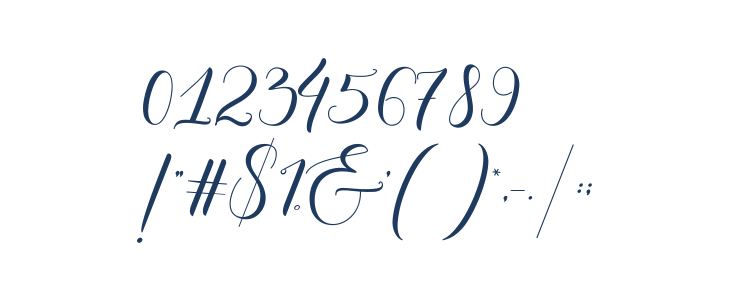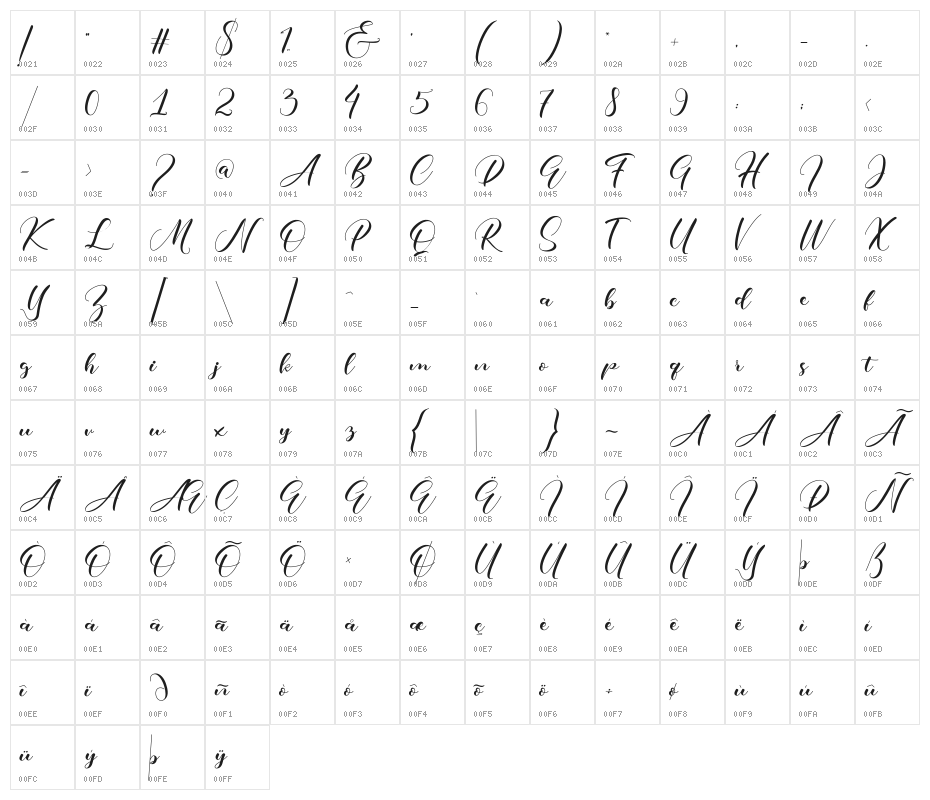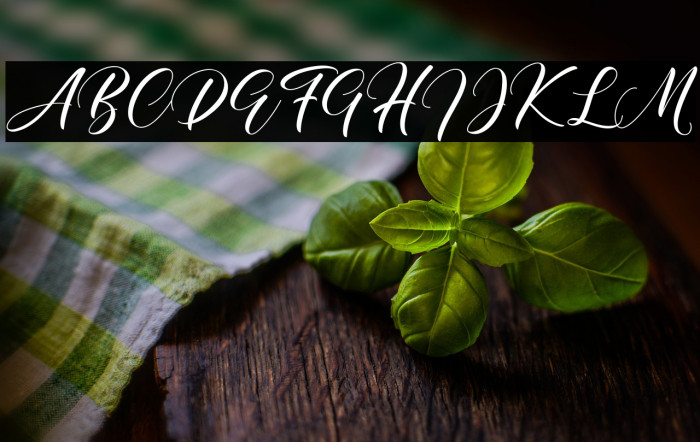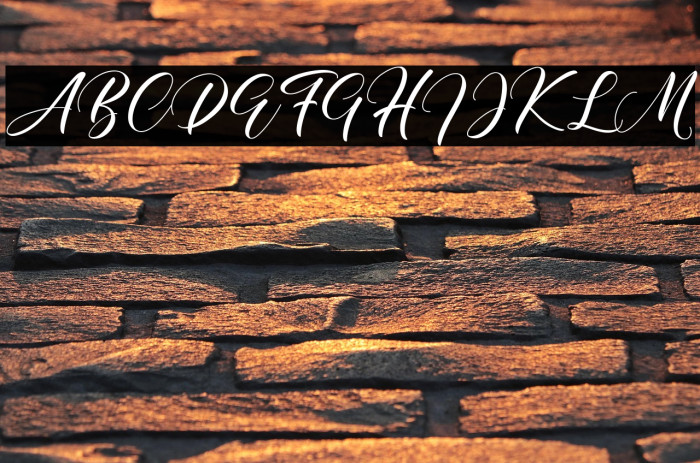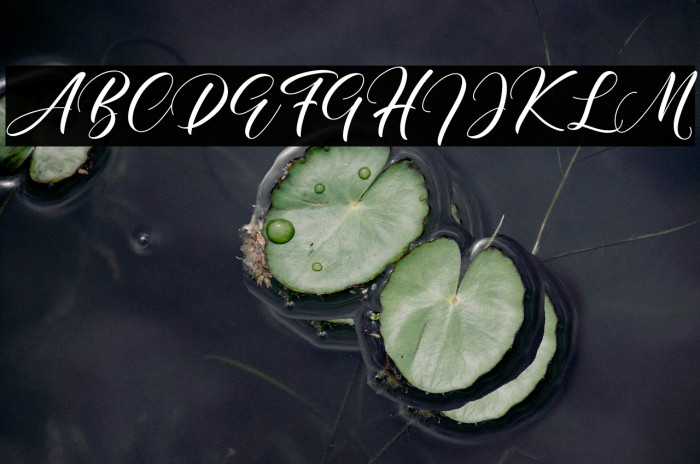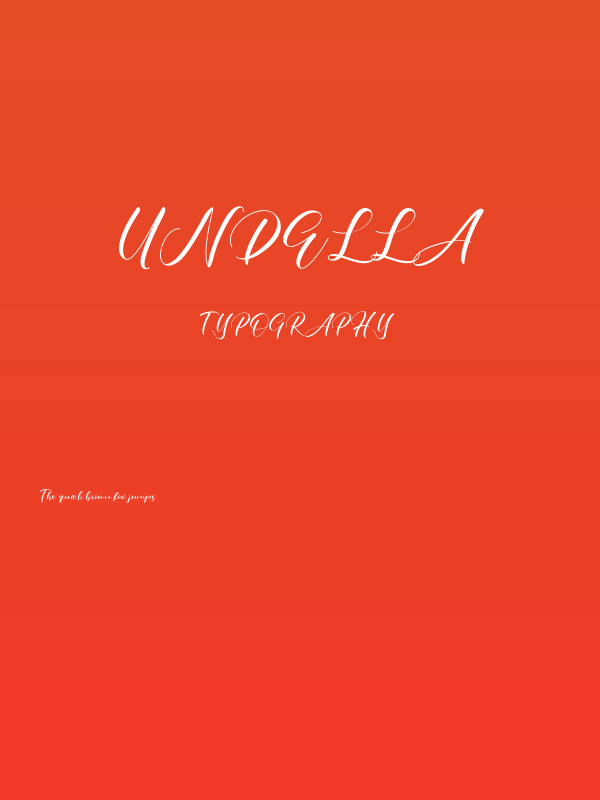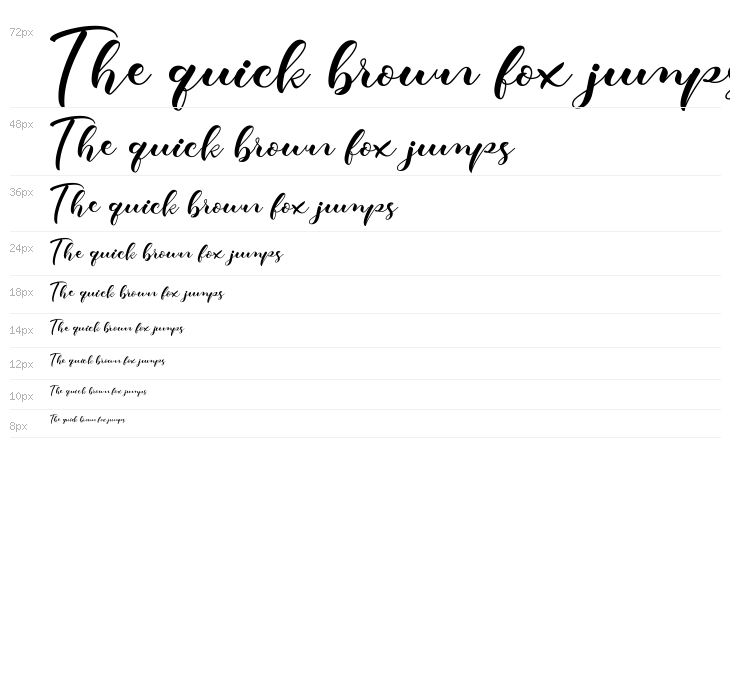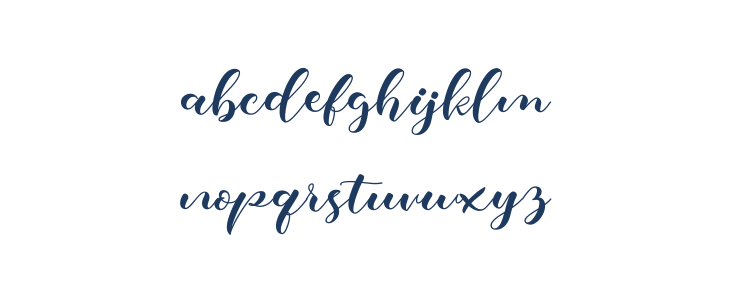
Undella Font
✎ Script
This elegant script font features flowing, cursive strokes that exude sophistication and grace. The uppercase letters are characterized by their sweeping, elongated lines, while the lowercase letters maintain a consistent fluidity and charm. The numerals are stylishly crafted, with a unique flair that complements the overall aesthetic. Special characters are thoughtfully designed to match the font's refined style, making it suitable for a variety of creative applications. The font's delicate curves and intricate details make it ideal for projects that require a touch of elegance and class.
| Overall Style | Elegant, Sophisticated |
| Use Case | Logos, Invitations, Decorative text |
| Proposed Projects | Wedding invitations, luxury branding, elegant packaging, greeting cards, and high-end editorial design. |